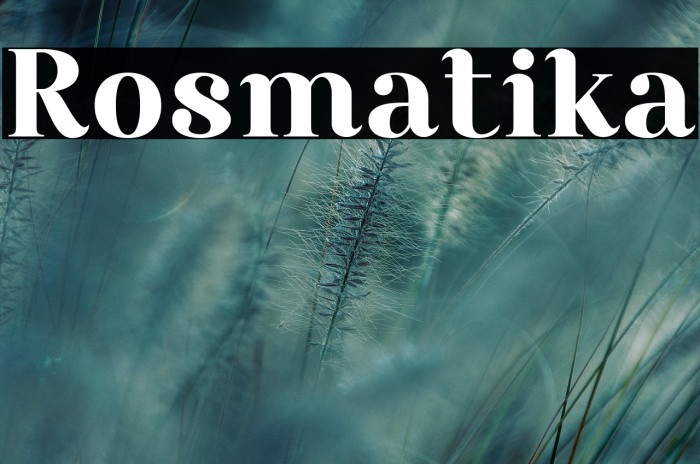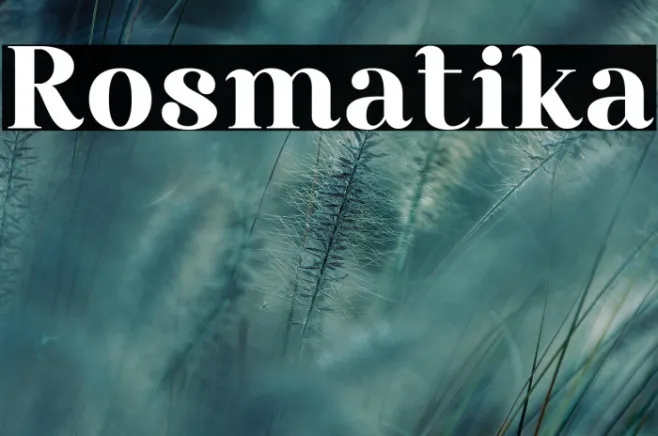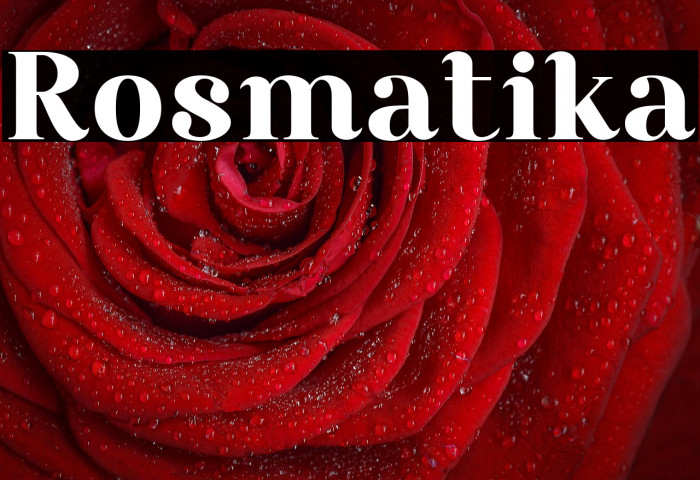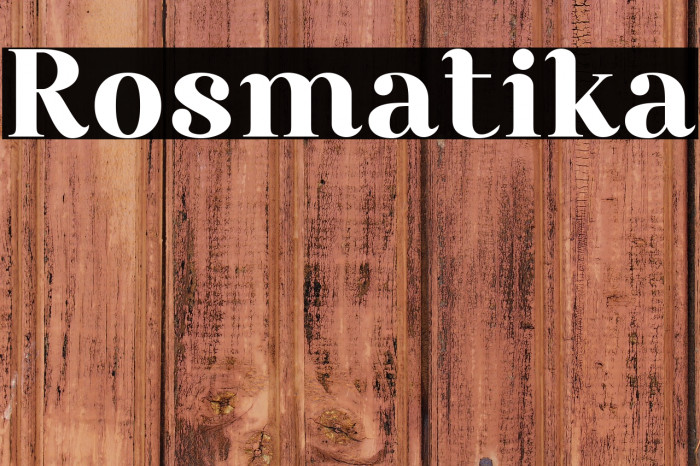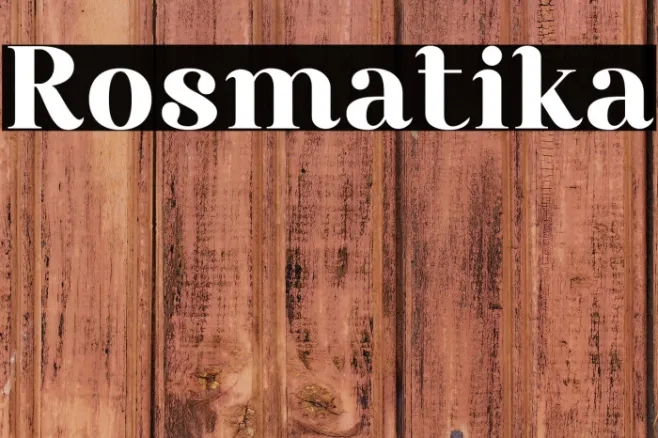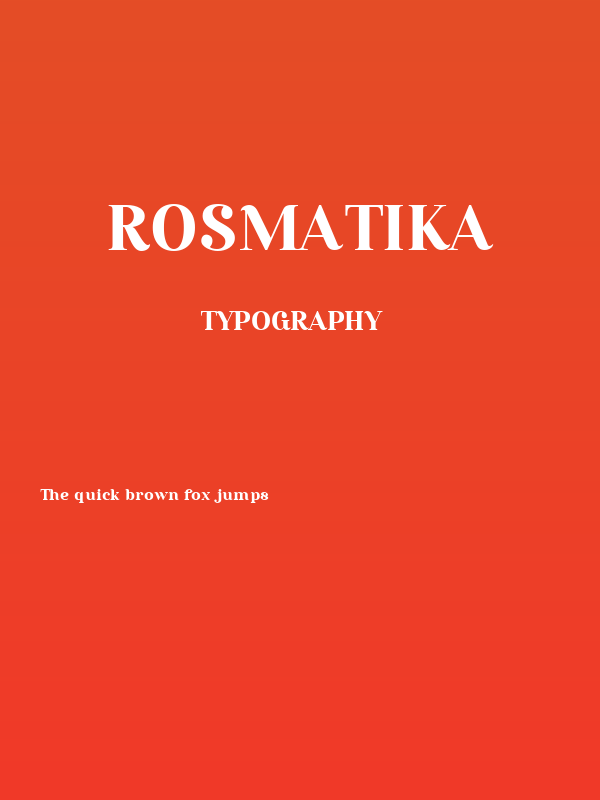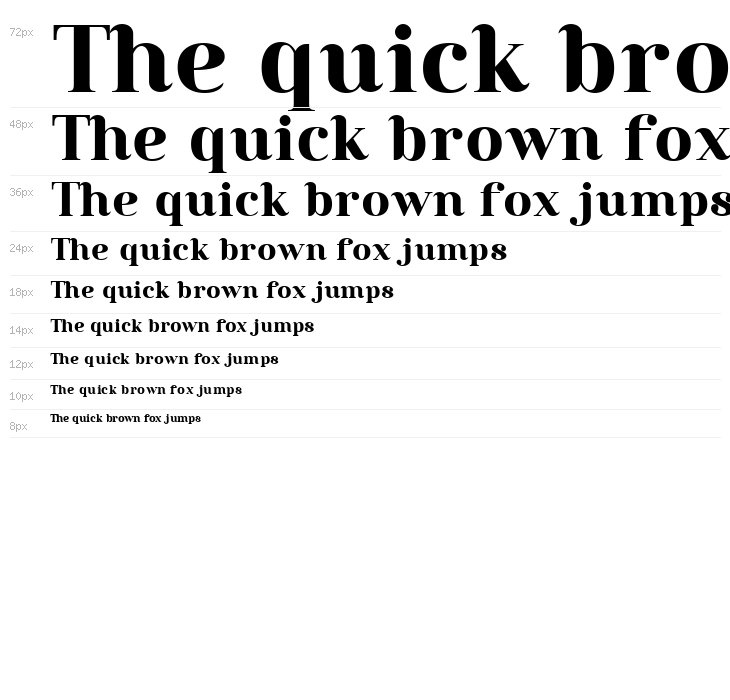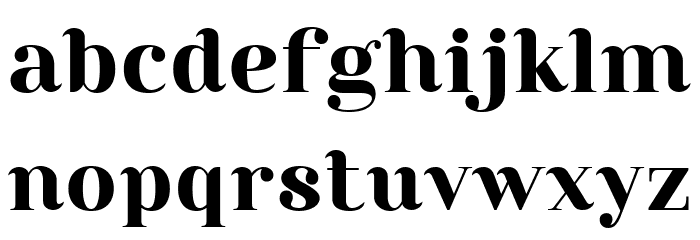
Rosmatika Font
Rosmatika Description
This font features a bold and elegant serif style, characterized by its strong vertical strokes and subtle curves. The uppercase letters exhibit a classic and authoritative presence, while the lowercase letters maintain a harmonious balance with slightly rounded edges. The numerals are distinct and clear, ensuring readability. Special characters are well-integrated, adding versatility to the font's application. The overall design is sophisticated, making it suitable for formal and professional settings. Its high contrast in stroke thickness enhances its legibility and visual impact.
| Use Case | Headlines, Logos, Editorial design |
| Proposed Projects | Ideal for use in editorial design, book covers, branding, and formal invitations. |